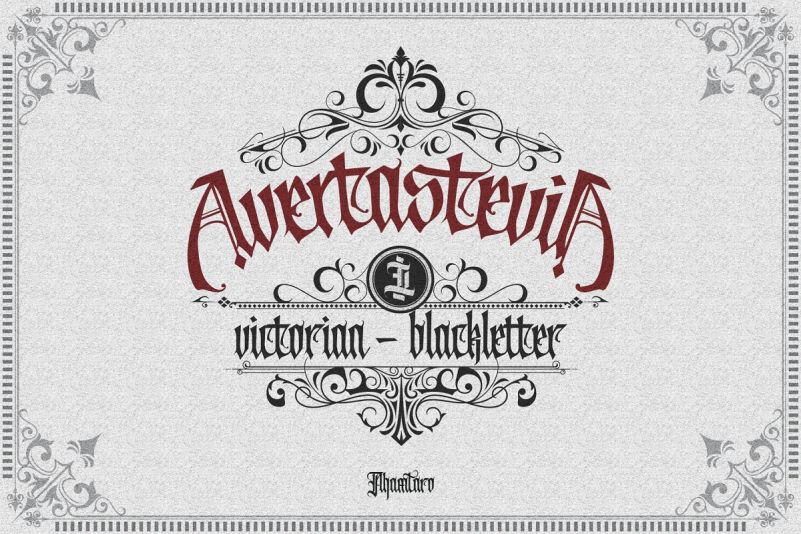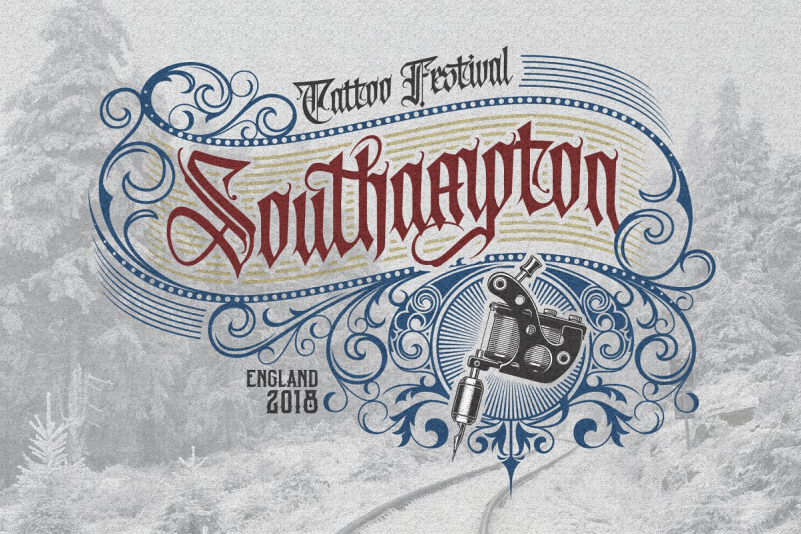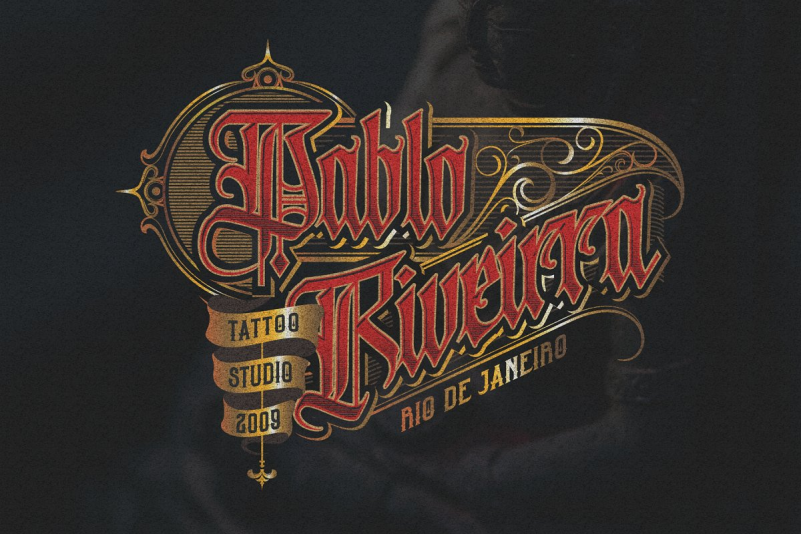
Avertastevia Font
is a typeface with Victorian-Blackletter style taste, includes full set of gorgeous uppercase and lowercase letters, numerals, punctuation, ligatures, discretionary ligatures, alternate characters, multilingual characters support and extra ornaments, giving realistic calligraphy victorian-blackletter style.